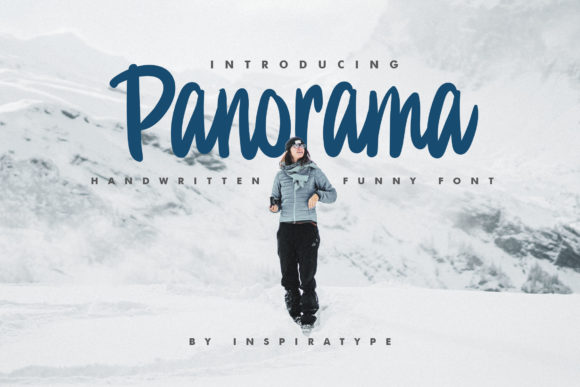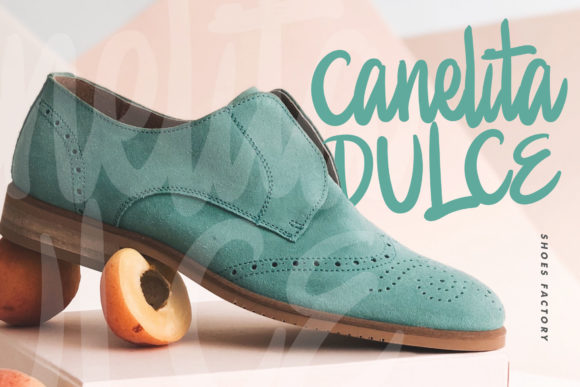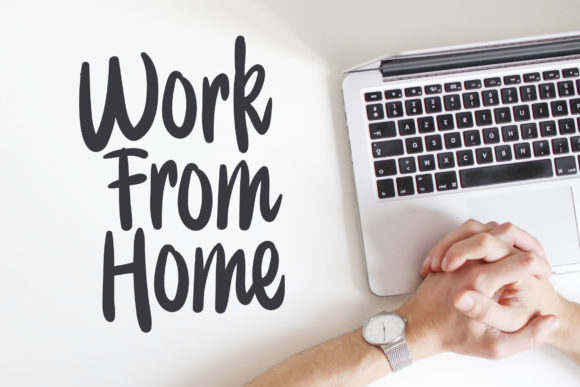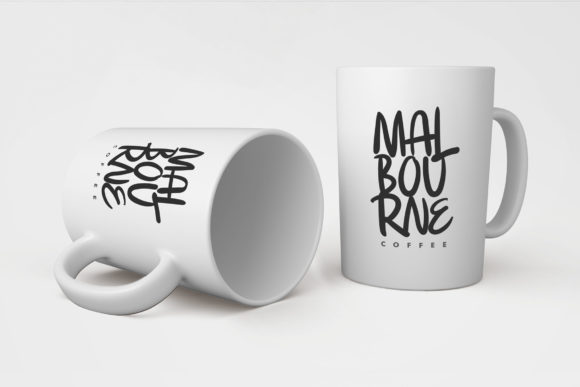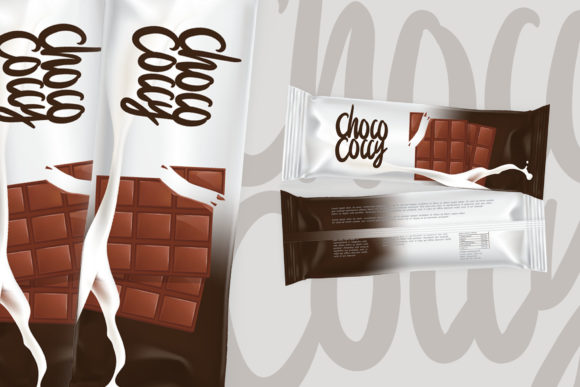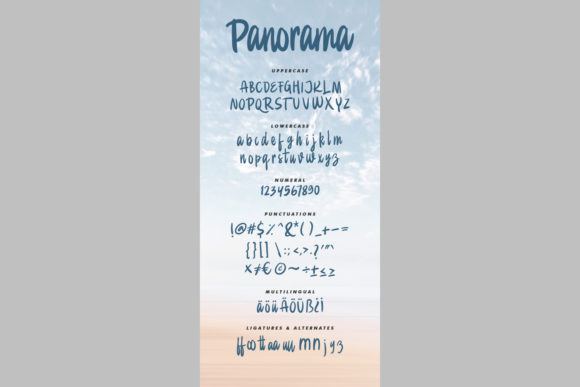
About Panorama Font
Panorama is a tasteful, fun font, created by using a brush pen. Its casual charm makes it appear wonderfully down-to-earth, readable, and, ultimately, incredibly versatile. This font is the perfect fit for all of your logos, branding, social media, and crafty DIY projects.